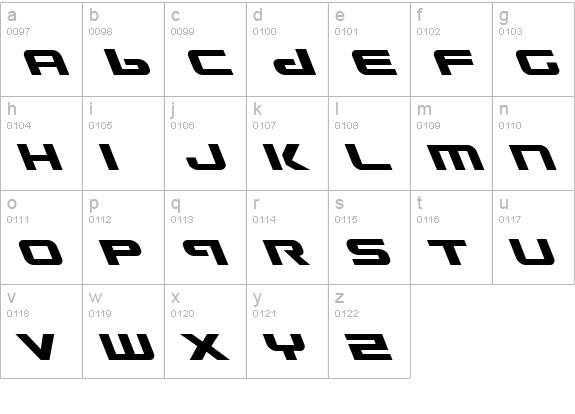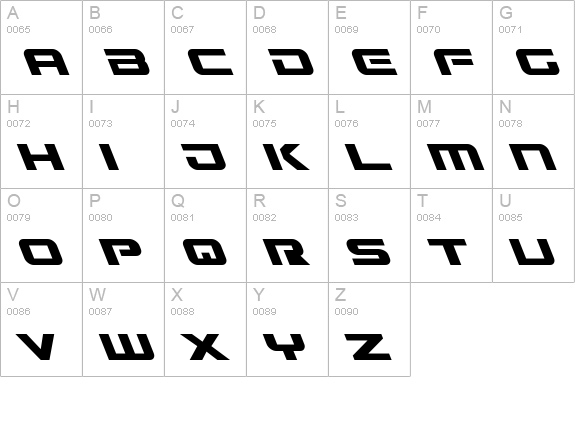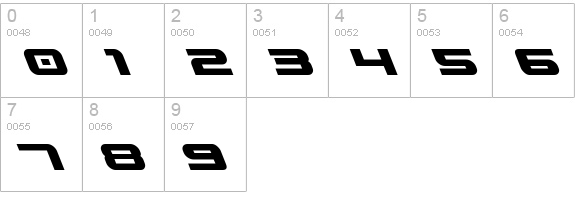
Gunship Leftalic is a bold and modern display font that exudes a sense of strength and power. The slanted italic design adds a dynamic and edgy look to any project, making it perfect for titles, headlines, and other attention-grabbing text. With its sleek lines and sharp angles, Gunship Leftalic commands attention and conveys a sense of boldness and confidence. This font is not only visually striking, but also versatile and easy to read, making it a great choice for a wide range of design projects. Whether you're creating a poster, logo, website, or any other type of graphic design, Gunship Leftalic will make your text stand out and leave a lasting impression. Best of all, Gunship Leftalic is available for free download at FontsMarket.com. So why wait? Add this powerful and stylish font to your collection today and take your designs to the next level!